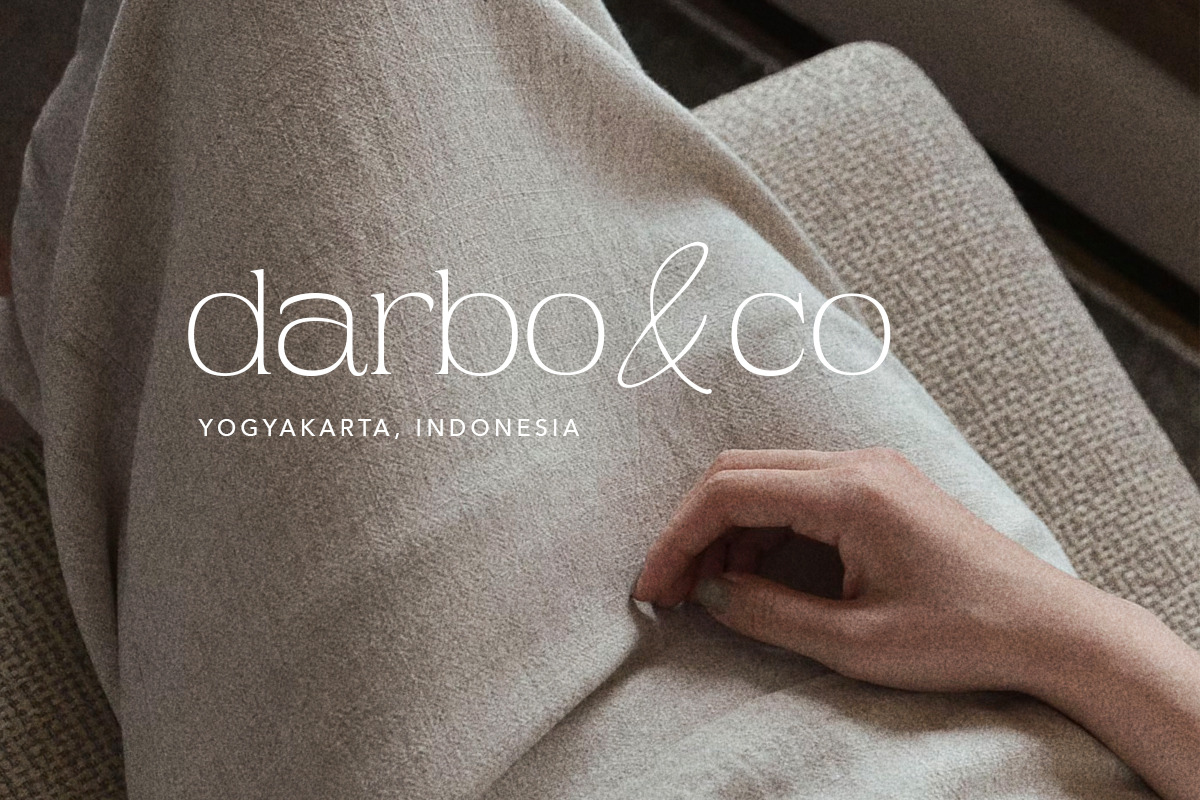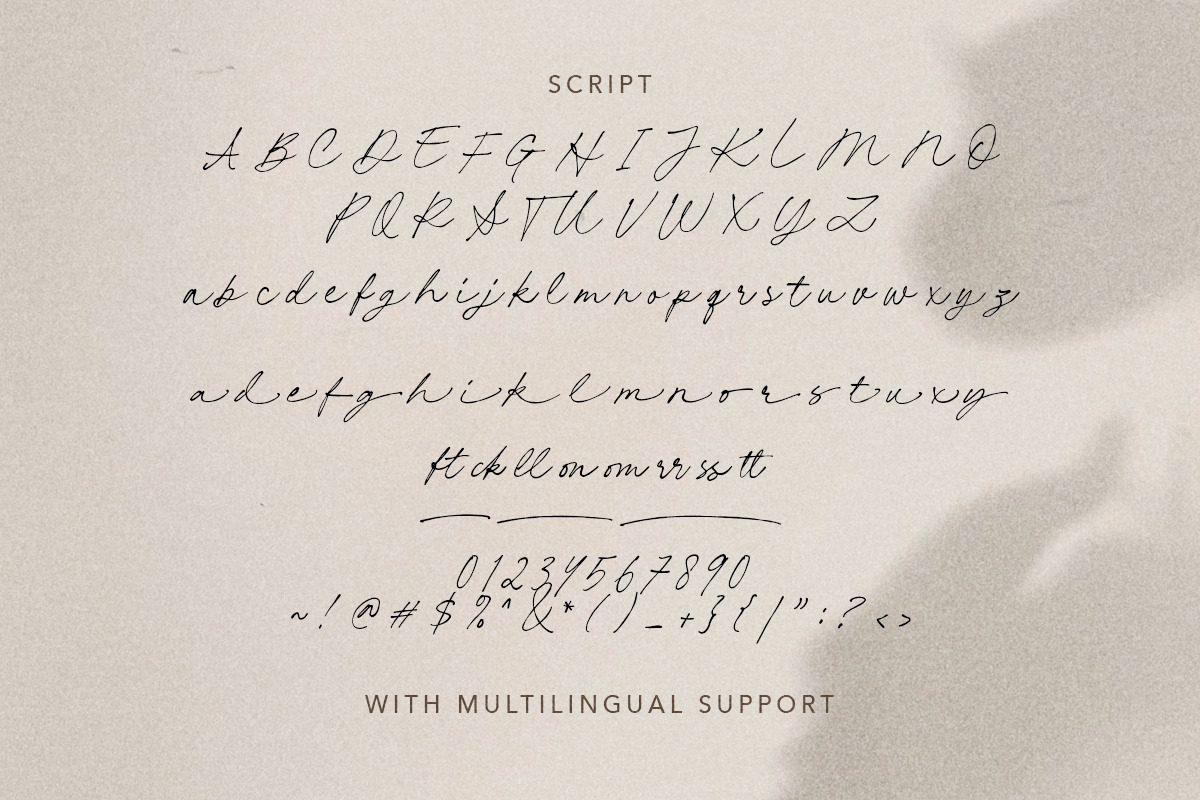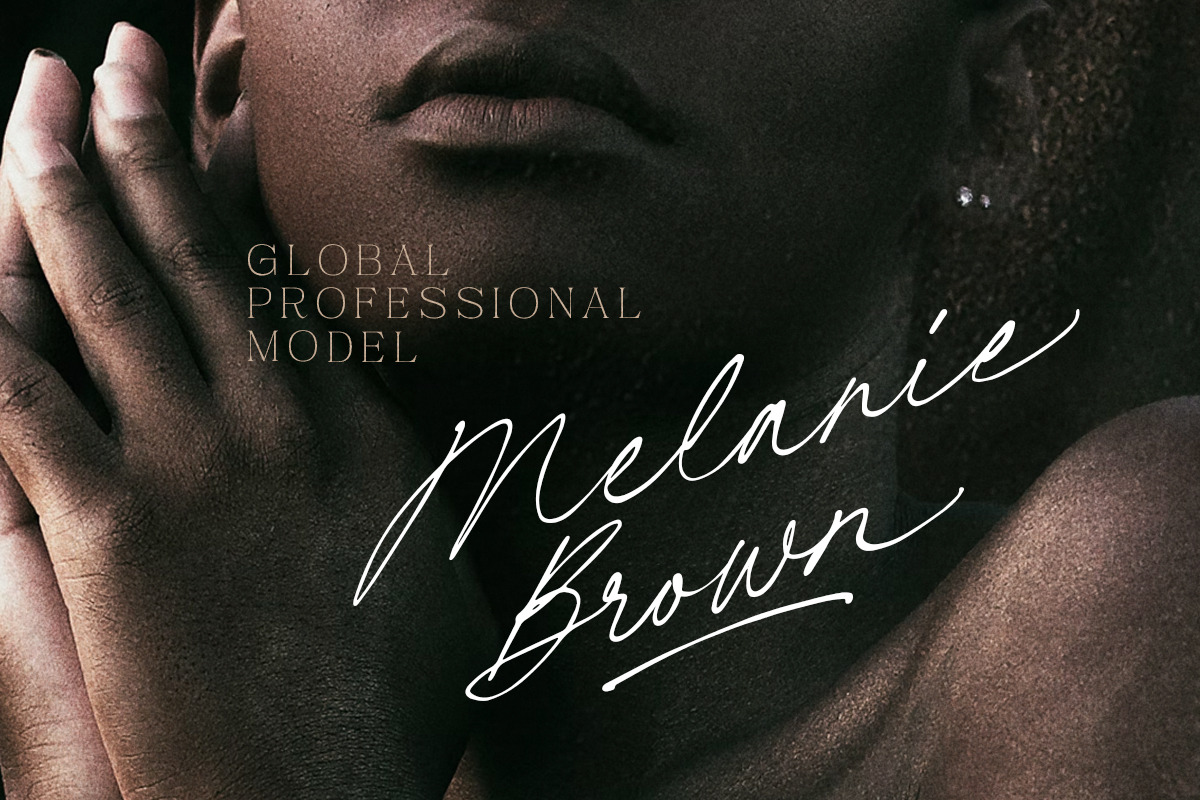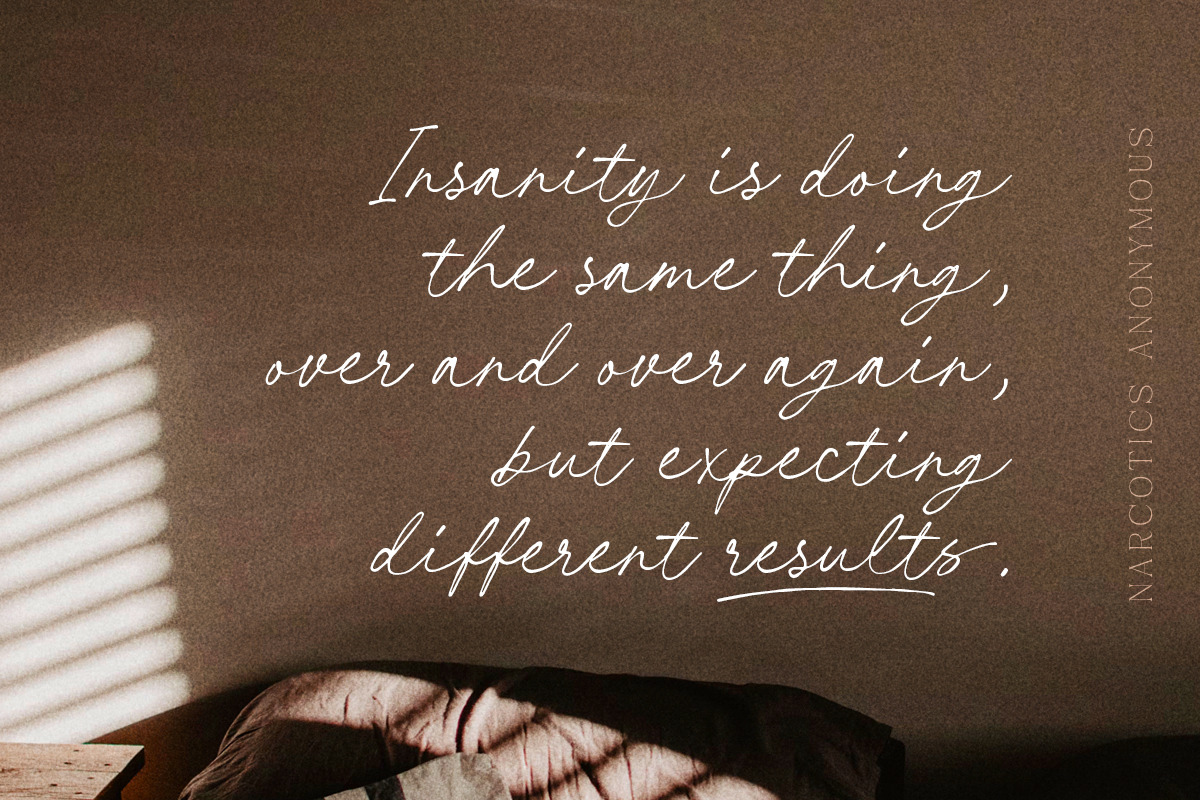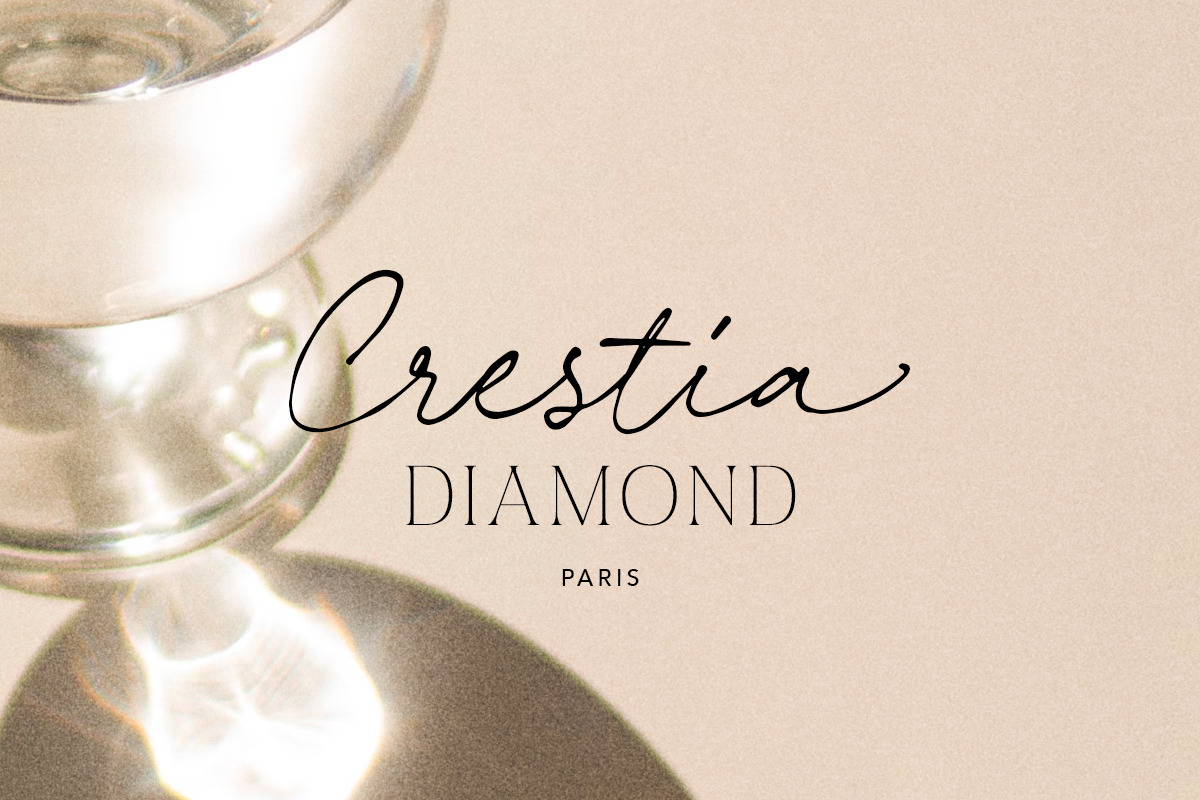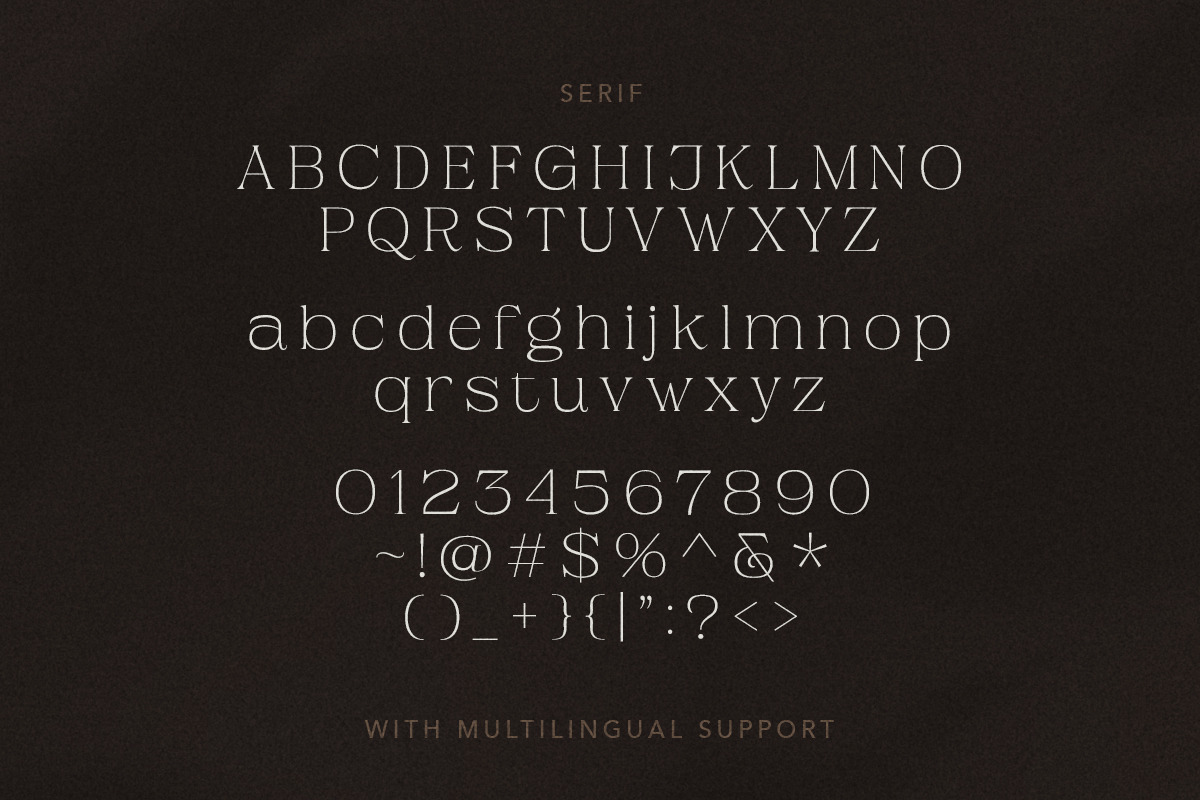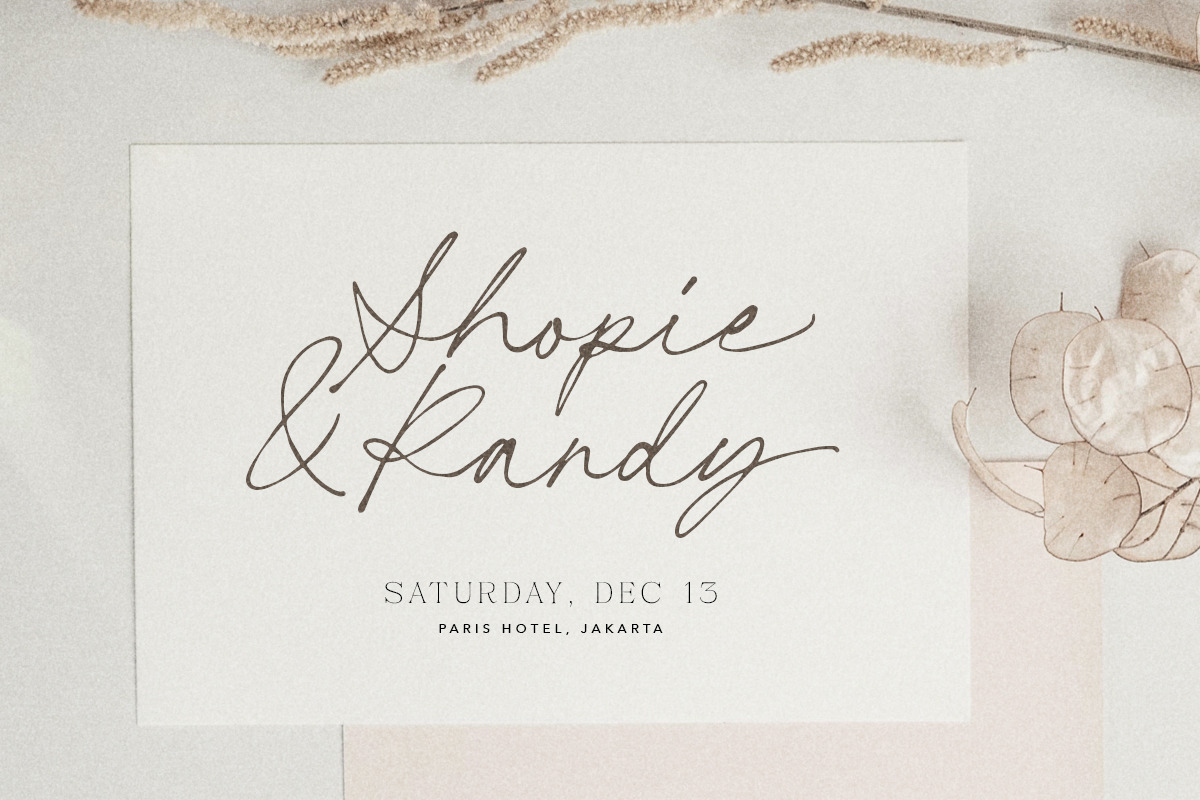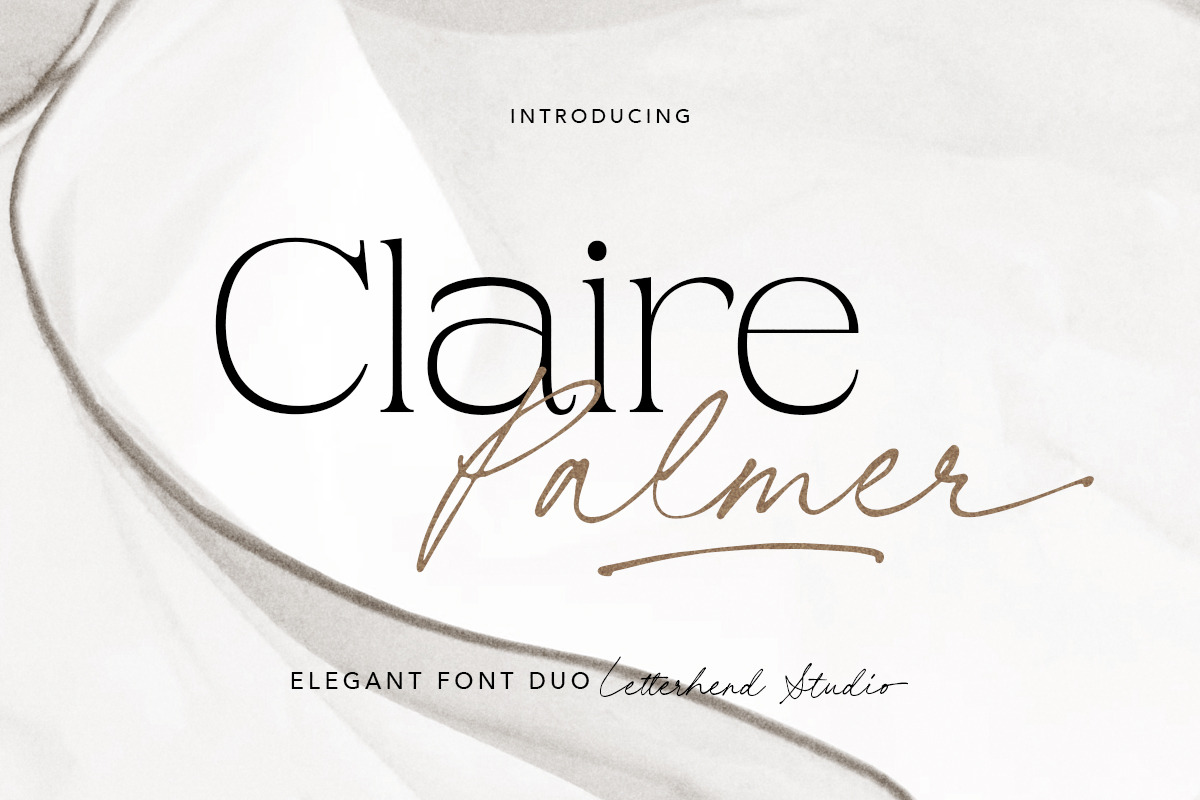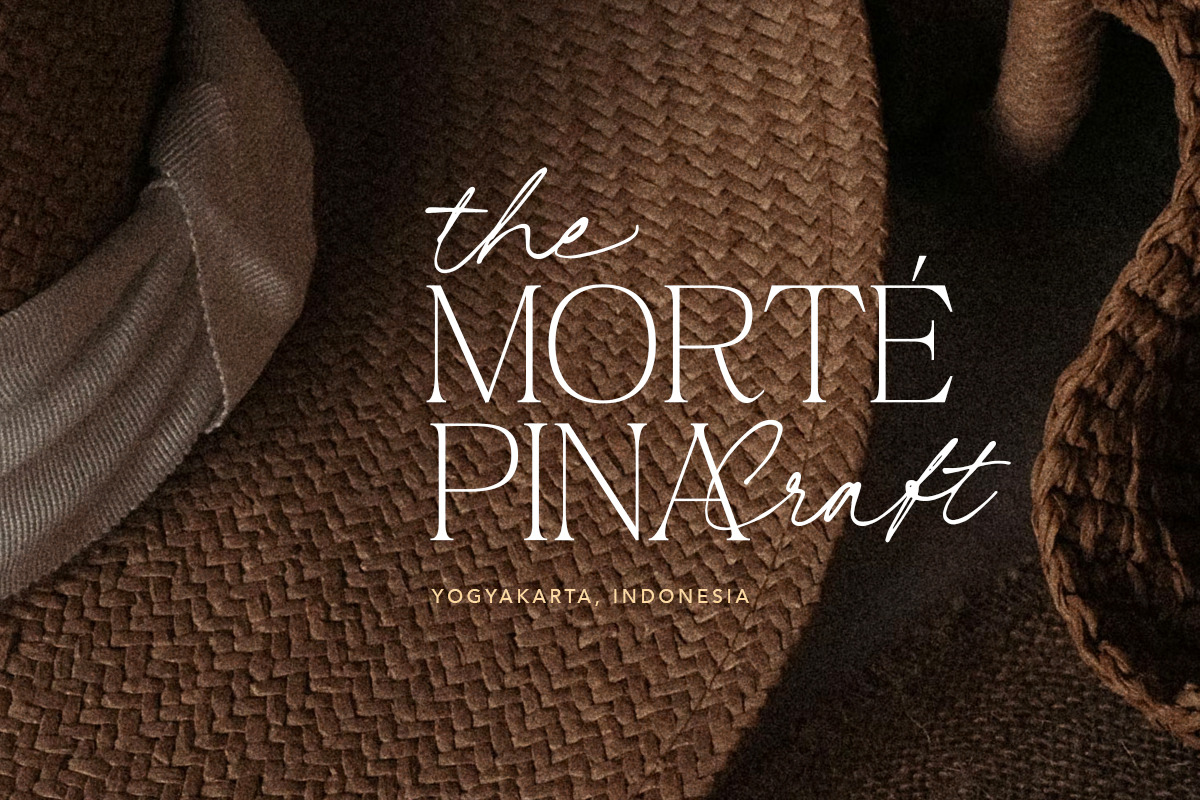
Claire Palmer- Elegant Font Duo
The Claire Palmer font duo is a stunning combination of a script and serif font. The script font features flowing strokes and graceful curves, while the serif font is clean and elegant. Together, they create a modern and sophisticated look that's perfect for a wide range of projects like a logo, and the other various formal forms such as invitations, labels, logos, magazines, books, greeting / wedding cards, packaging, fashion, make up, stationery, novels, labels or any type of advertising purpose.
- Alternates & Ligatures -Multilingual